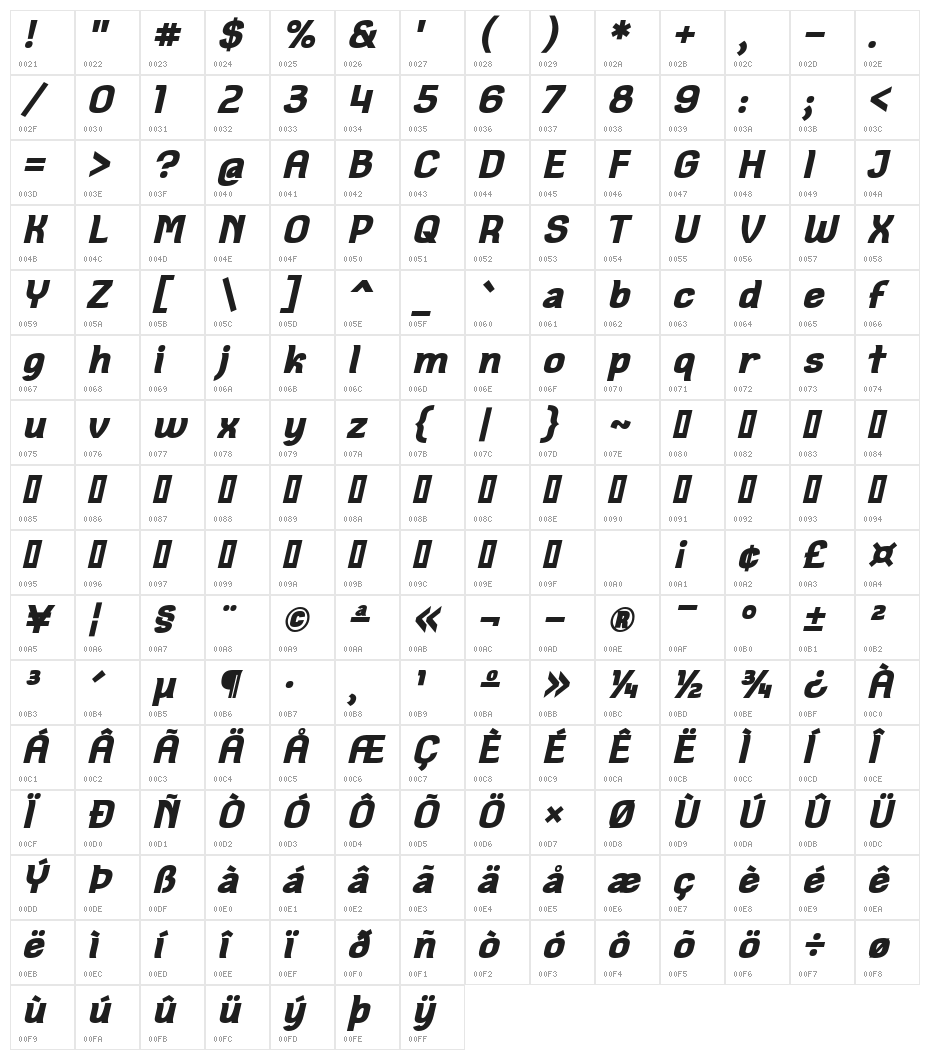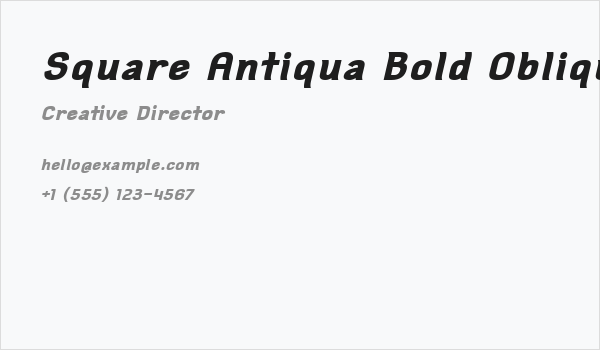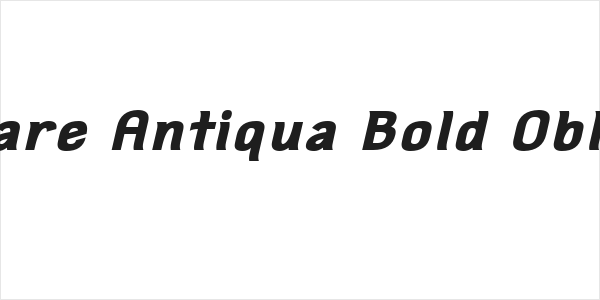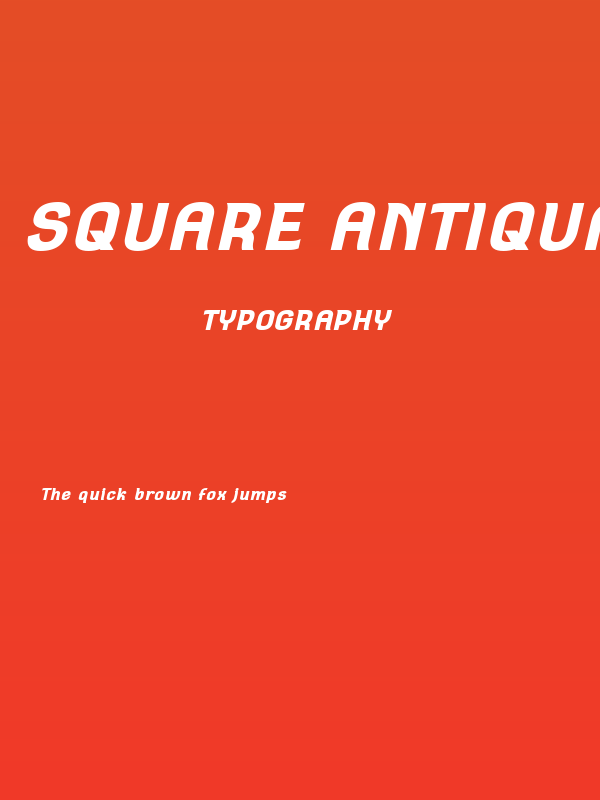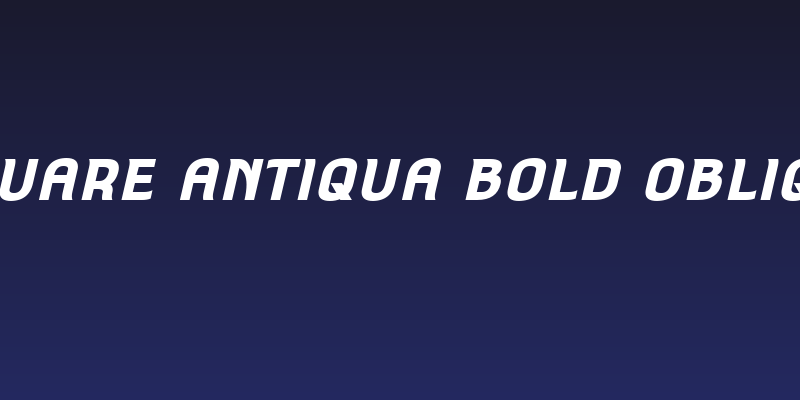
Square Antiqua Bold Oblique Font
Square Antiqua Bold Oblique Description
This font features a bold and oblique style, characterized by its strong presence and dynamic slant. The uppercase and lowercase letters maintain a consistent weight, providing a uniform appearance across the text. The numerals are equally bold, ensuring they stand out in any composition. Special characters are designed with the same attention to detail, making them easily recognizable and harmonious with the rest of the font. The overall design is modern yet retains a classic touch, suitable for various applications.
| Proposed Projects | Ideal for branding, advertising, and headlines where a strong and dynamic presence is needed. |